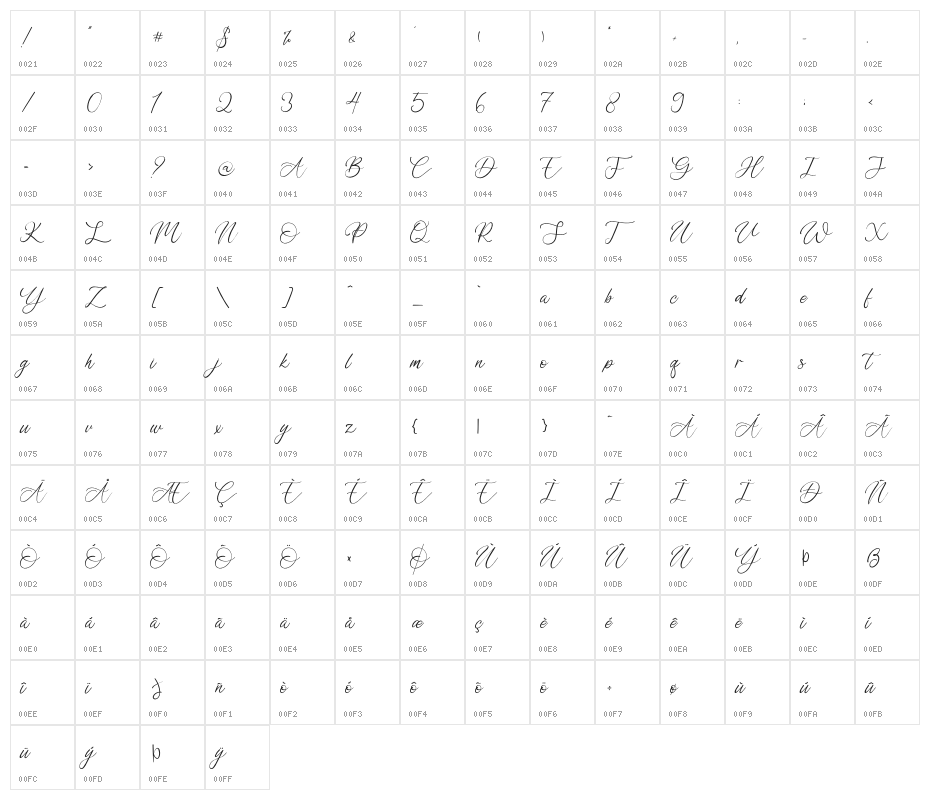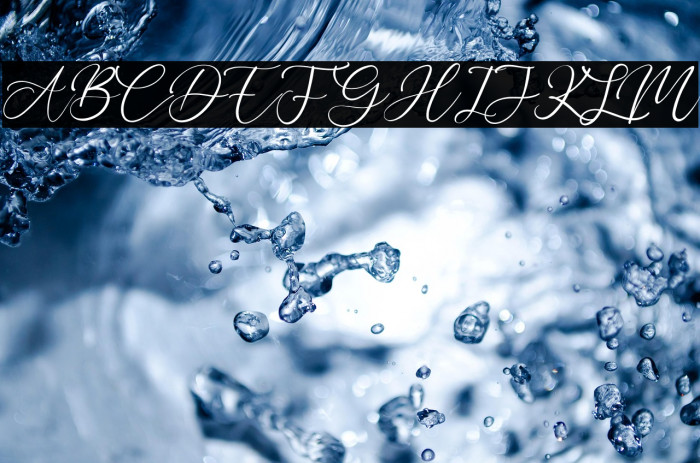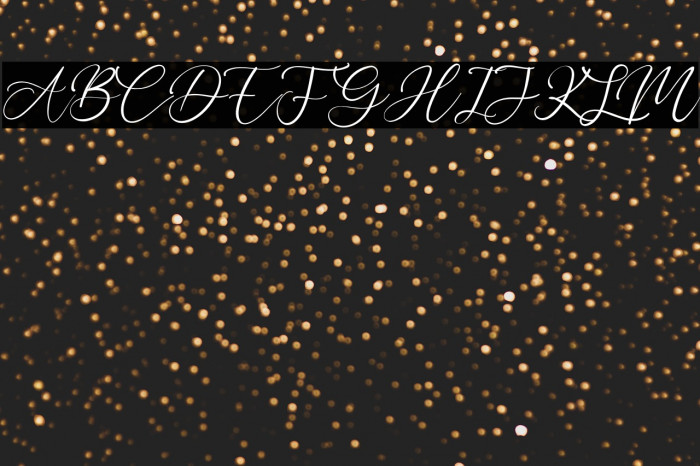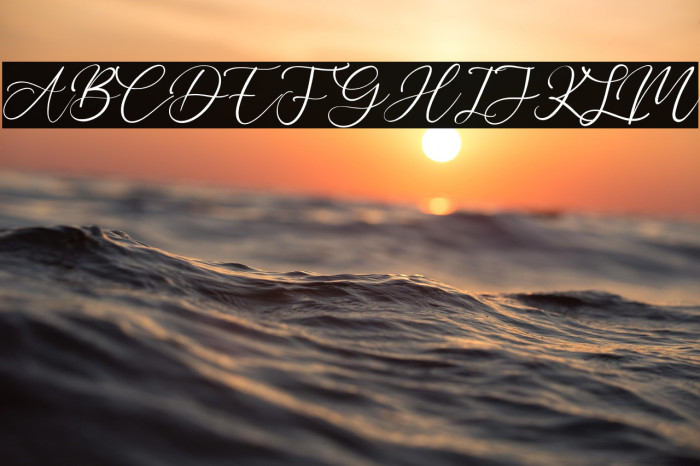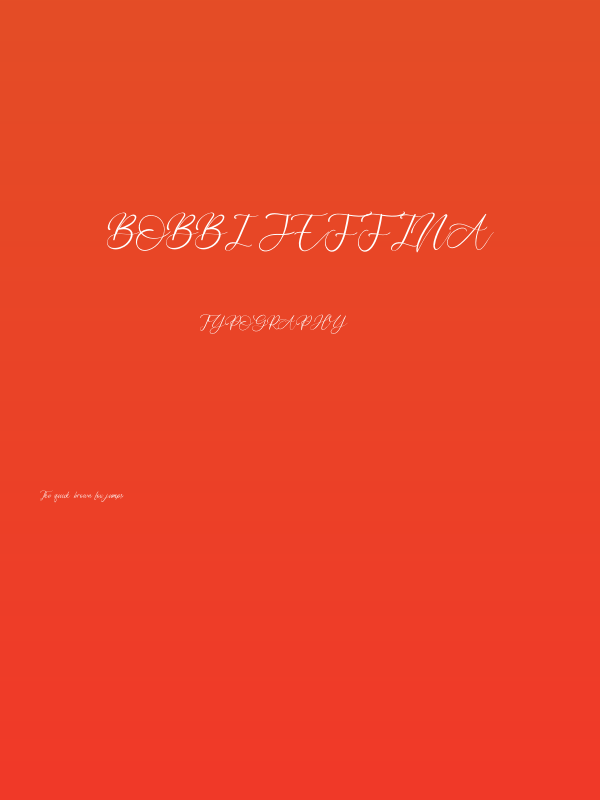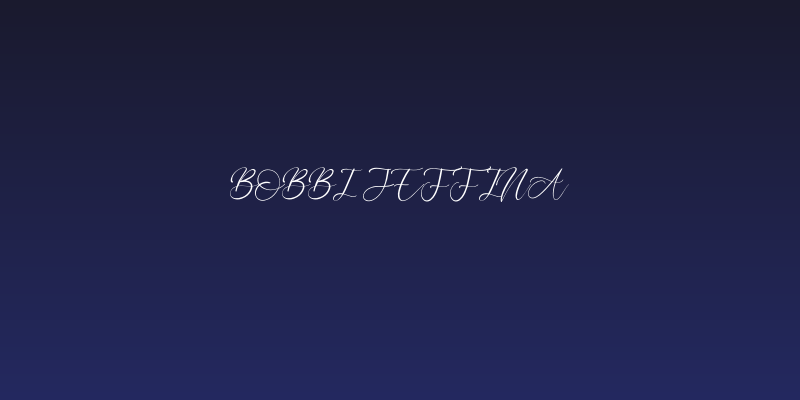
Bobbi Jeffina Font
Bobbi Jeffina Description
This elegant script font features flowing, cursive strokes that exude sophistication and grace. The uppercase letters are characterized by their sweeping loops and flourishes, creating a sense of movement and fluidity. The lowercase letters maintain a consistent style, with gentle curves and a slight slant that enhances readability while preserving the font's decorative nature. The numerals are designed with a similar flair, ensuring a cohesive look across all characters. Special characters are thoughtfully integrated, matching the overall aesthetic with their ornate details. This font is perfect for projects that require a touch of elegance and refinement.